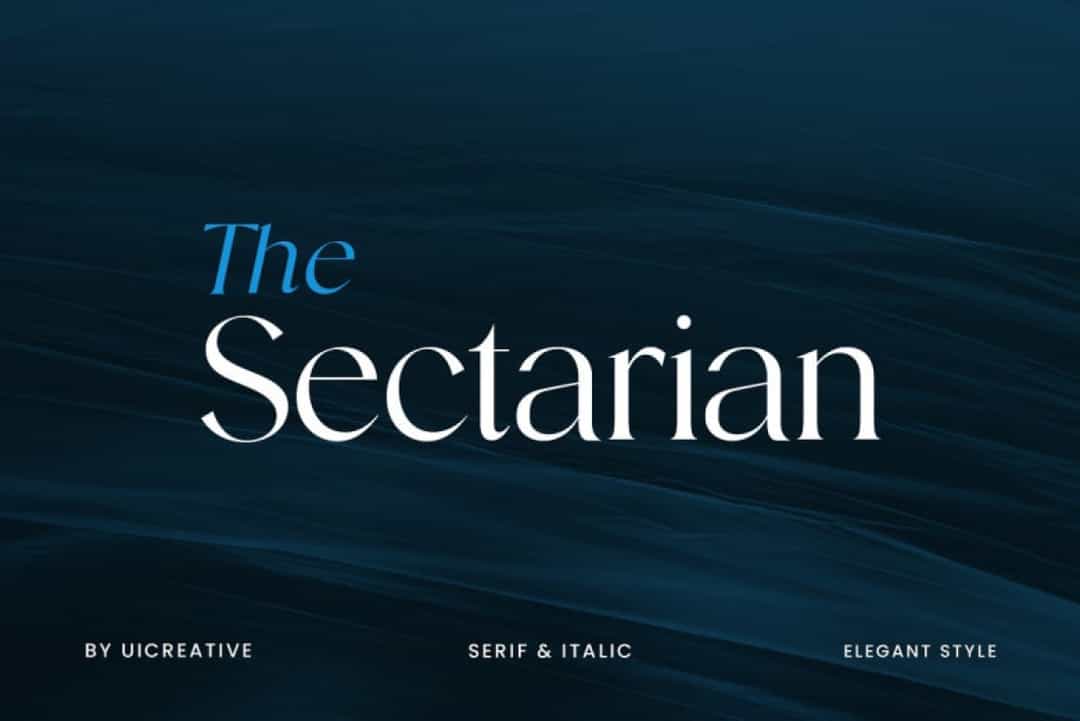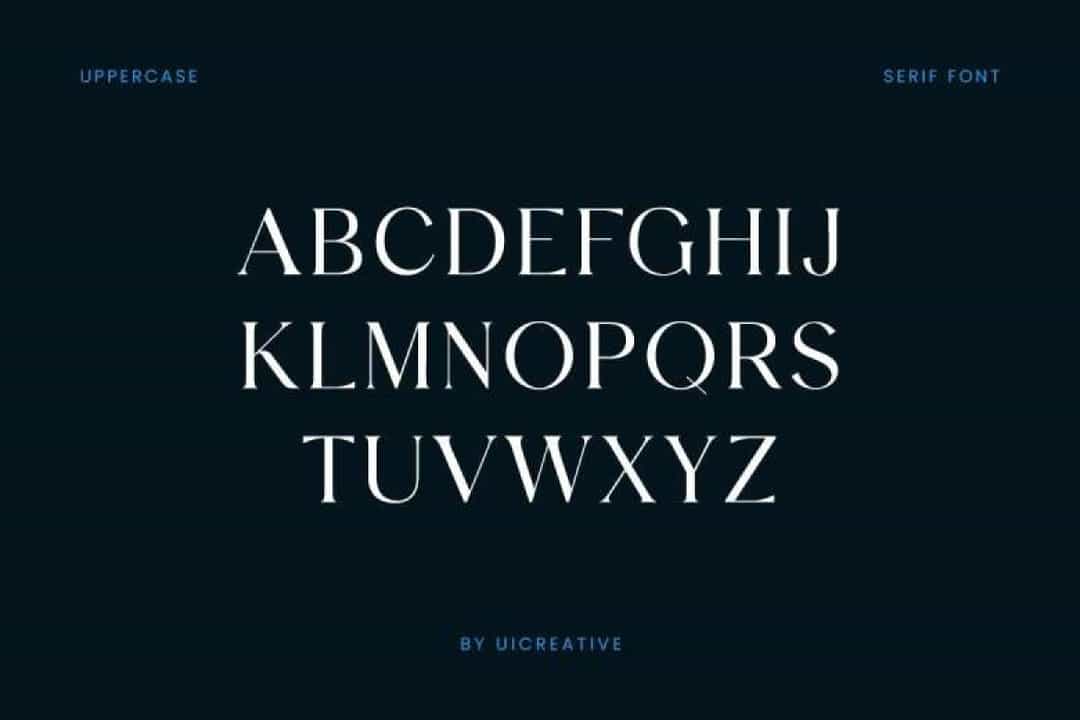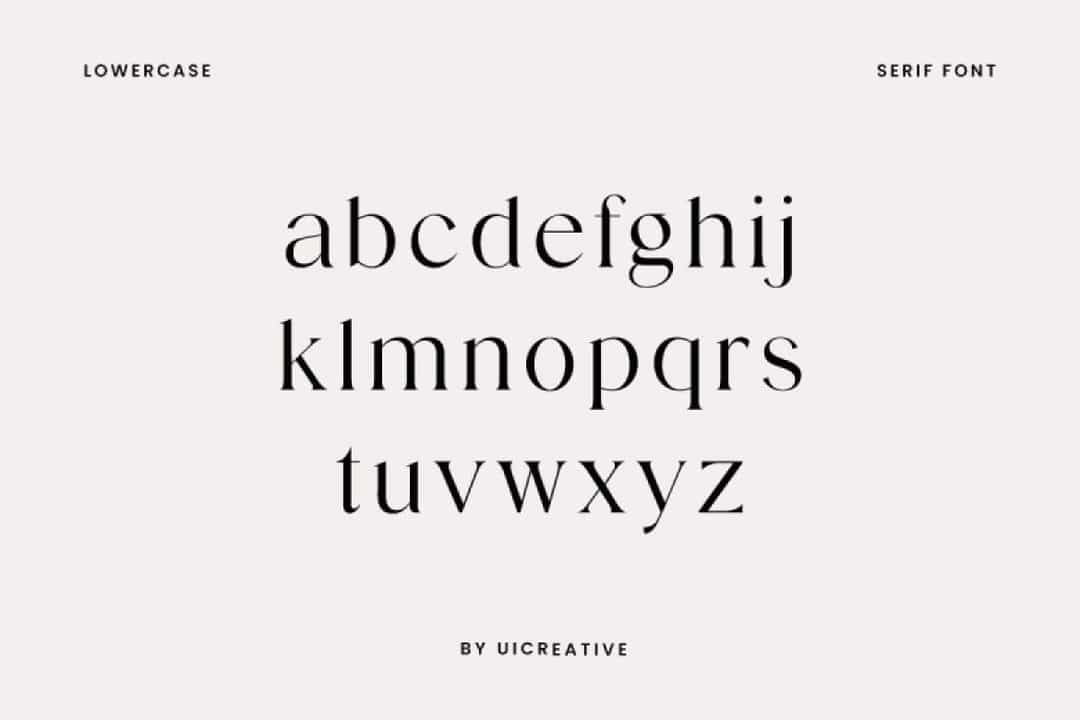
The Sectarian is a contemporary serif font, elegant and classy modern in appearance. Suitable for many projects including stationary, signatures, logo weddings, typography quote book, magazine covers headers, website headers, branding clothing packaging etc – and especially branding that demonstrates both feminine and masculine qualities such as fashion-related or editorial designs.